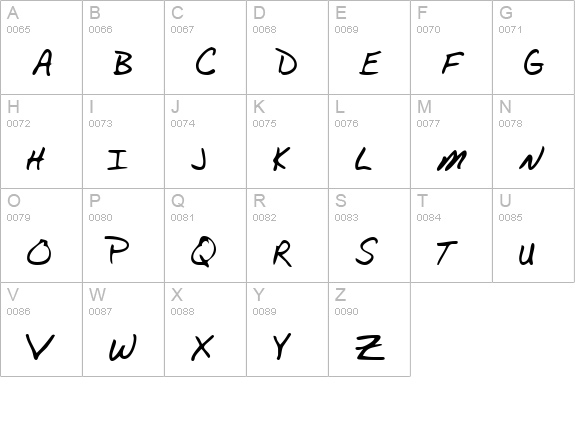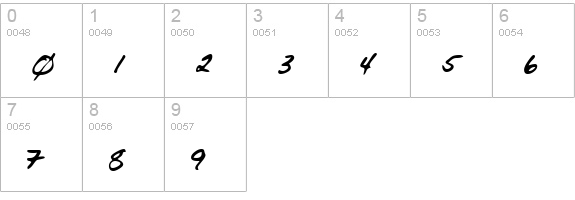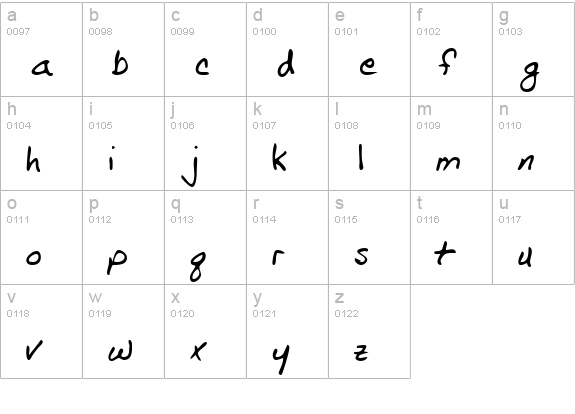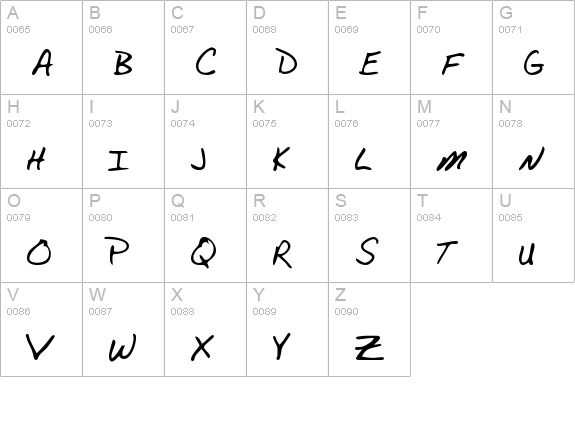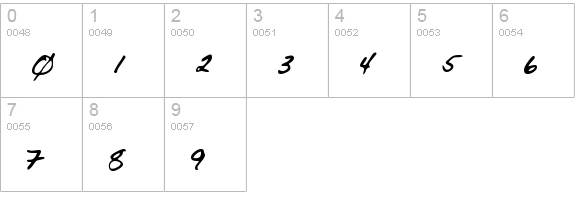
FranklinsHand Regular Font Details
FranklinsHand Regular is the standard, neutral variant in the FranklinsHand typeface family \xE2\x80\x94 well suited to general body text, paragraphs, and standard typographic work.
FranklinsHand Regular is a charming and versatile font that exudes a sense of warmth and friendliness. With its smooth curves and flowing strokes, this font is perfect for adding a personal touch to your projects. Whether you're designing greeting cards, invitations, or branding materials, FranklinsHand Regular will bring a unique and inviting feel to your designs. Best of all, FranklinsHand Regular is available for free download at FontsMarket.com. This means you can easily access this beautiful font and use it in your creative projects without any cost. Don't miss out on this wonderful opportunity to enhance your designs with the elegant and expressive FranklinsHand Regular font!